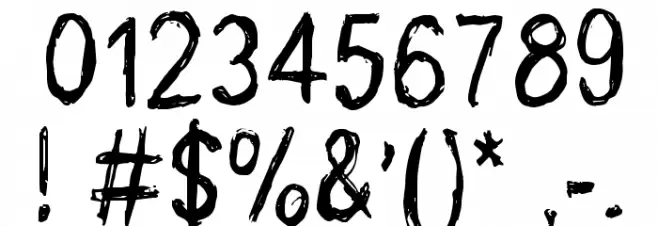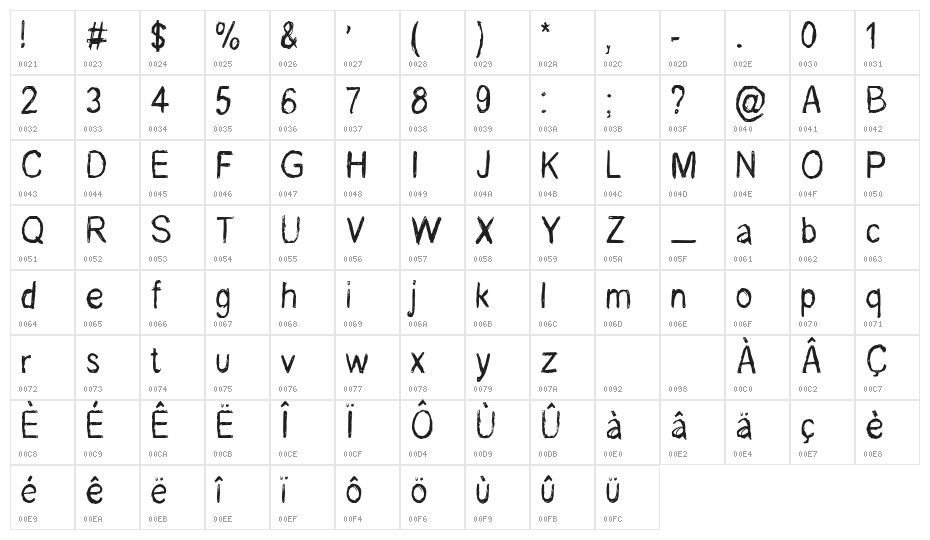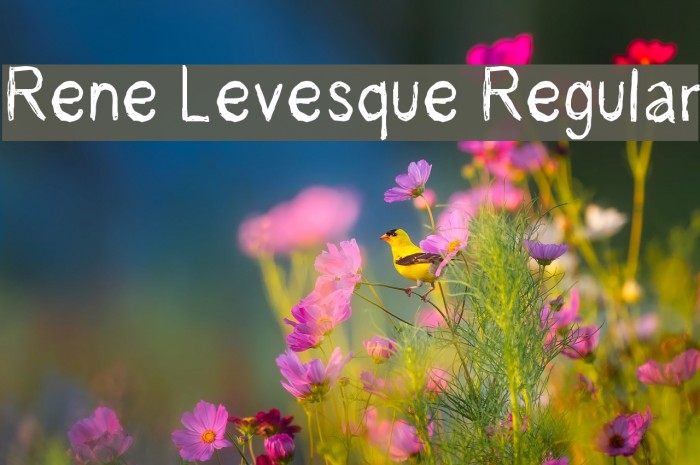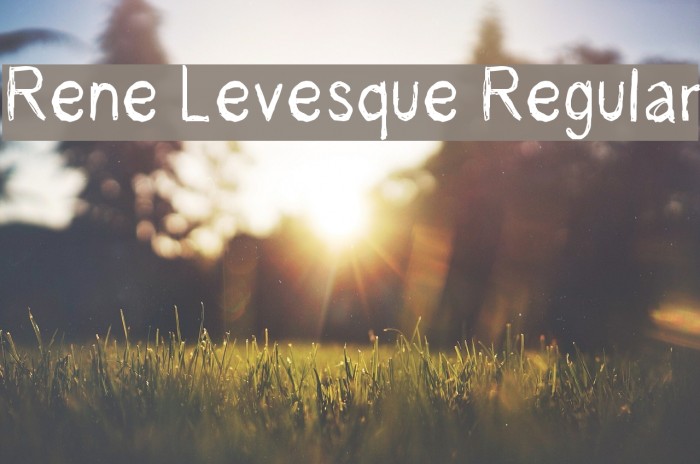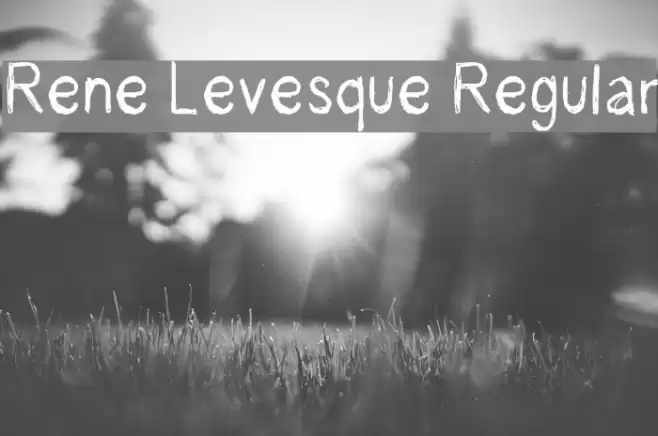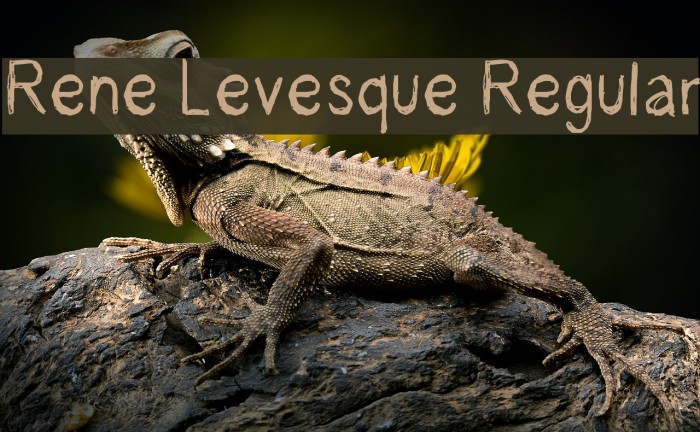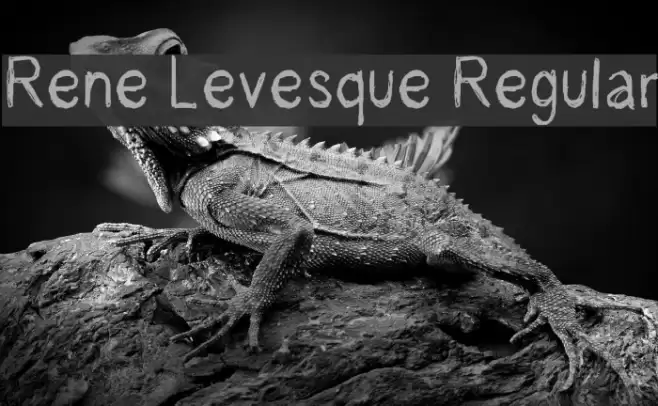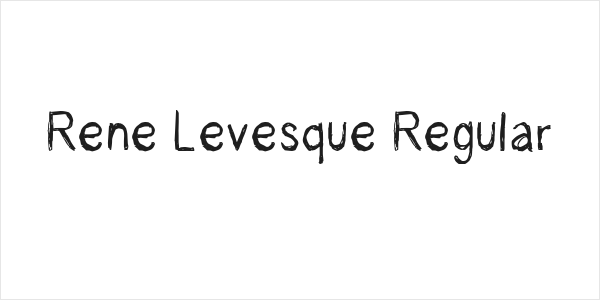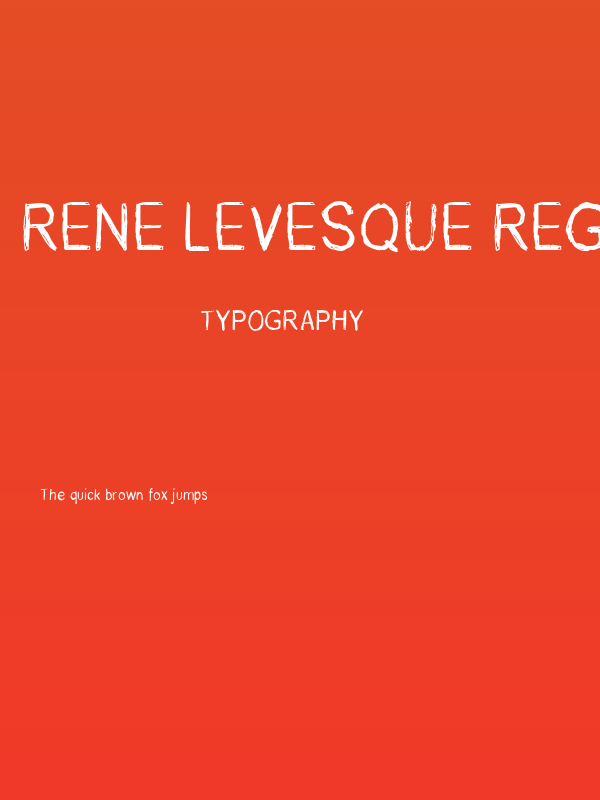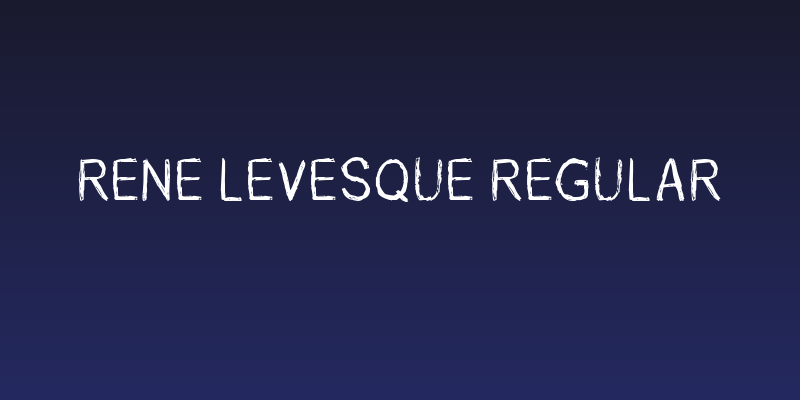
Rene Levesque Regular Font
Rene Levesque Regular Description
This font features a rough, hand-drawn appearance, giving it a unique and artistic feel. The characters are irregular, with varying stroke thicknesses that add to its handcrafted look. The uppercase and lowercase letters maintain a consistent style, with a slightly distressed texture that suggests a vintage or grunge aesthetic. The numerals and special characters follow the same design, ensuring a cohesive look across all text. This font's organic and imperfect style makes it stand out, ideal for projects that require a personal touch.
| Use Case | Logos, Posters, Artistic projects |
| Proposed Projects | Ideal for artistic projects, posters, album covers, and any design needing a handcrafted, vintage touch. |